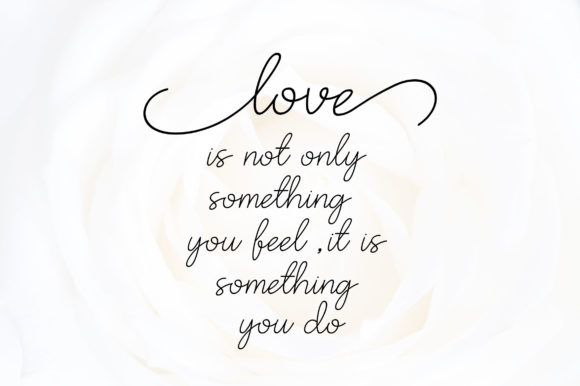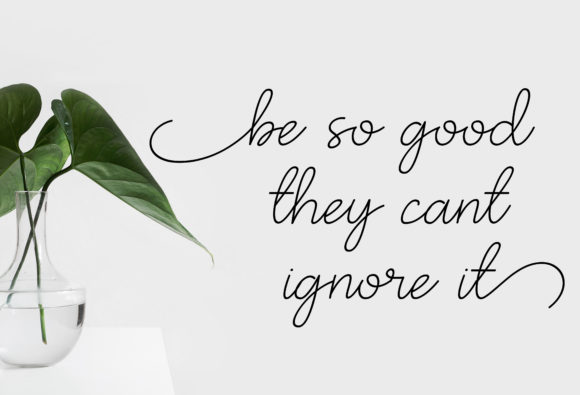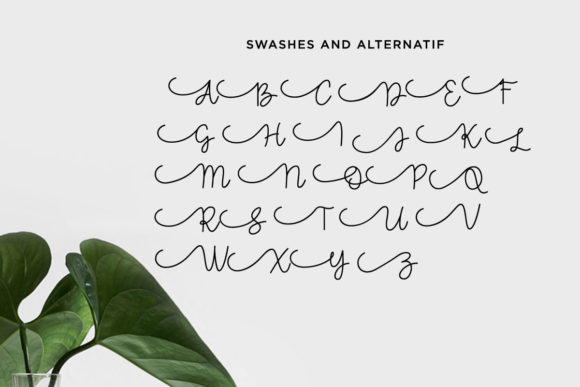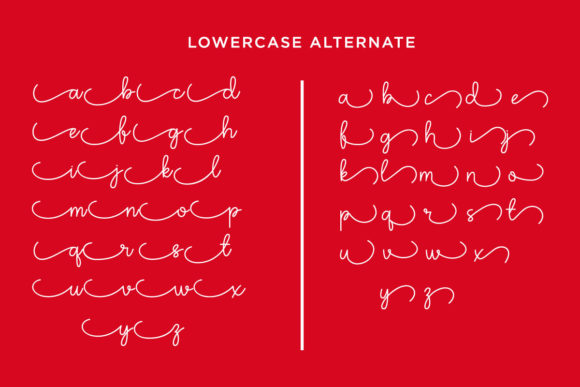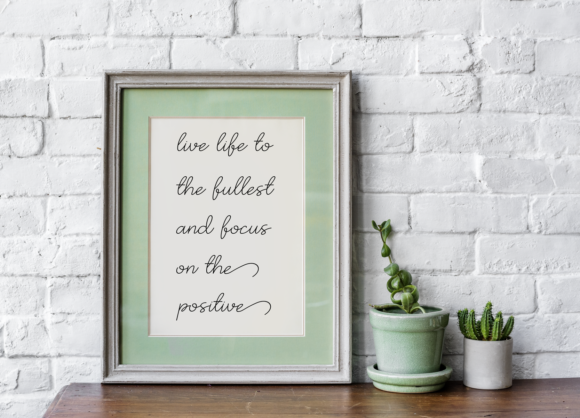
Unleash Your Creativity with the Perfect Font
Have you ever found yourself stuck in a design rut, staring blankly at a blank page, desperately searching for that perfect font to bring your vision to life? I know I have!
That’s where Amanda Font comes in – a charming, handwritten font that’s sure to add a touch of personality to any design project. With its beautiful swashes and unique flair, Amanda Font is the perfect tool for designers looking to add a bit of whimsy and elegance to their work.
Whether you’re a seasoned pro or just starting out, Amanda Font is a valuable addition to any design arsenal. Its versatility and charm make it a must-have for anyone looking to create truly standout designs that leave a lasting impression.
- Font Style: Script, Handwritten
- Unique Characteristics:
- Highly legible, with clear and readable letterforms
- Expressive and elegant, suitable for creative and artistic applications
Amanda Font Review
I recently had the chance to work with the Amanda Font, and I must say, it’s a lovely addition to any design project. ✨
- Elegant script design that adds a touch of sophistication to any text.
- Versatile and suitable for a wide range of applications, from invitations to advertising.
- High-quality font with detailed lettering that stands out from the rest.
One of the standout features of Amanda Font is its elegant script design. It’s perfect for adding a touch of class to your designs, whether it’s a wedding invitation or a business logo.
- Limited character set, which may be a problem for non-English languages.
- Not ideal for digital displays with low resolution, as the details may get lost.
- Some users may find the font too ornate for everyday use.
Overall, Amanda Font is a beautiful script font that’s perfect for special occasions or projects that require a touch of elegance. While it has its limitations, it’s definitely worth considering for your next design project.
Amanda Font is ideal for:
- Posters and flyers
- Typography-heavy designs